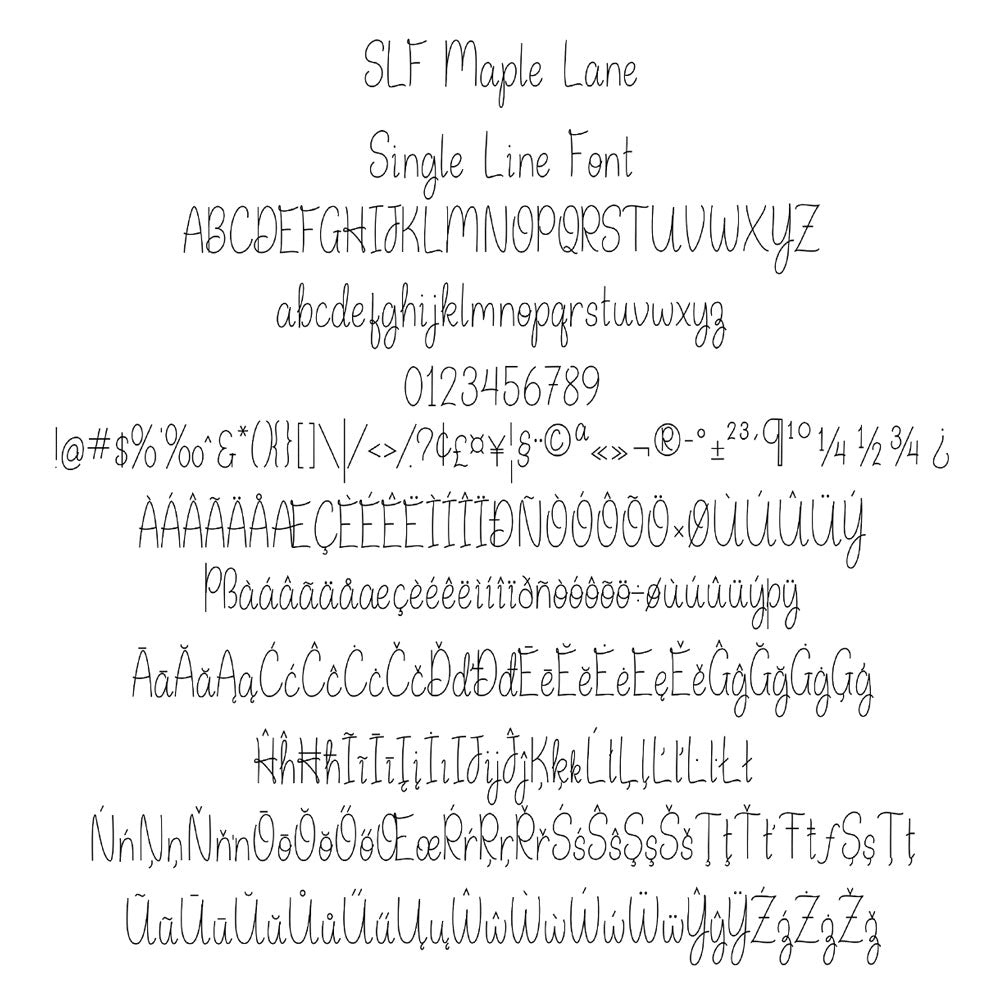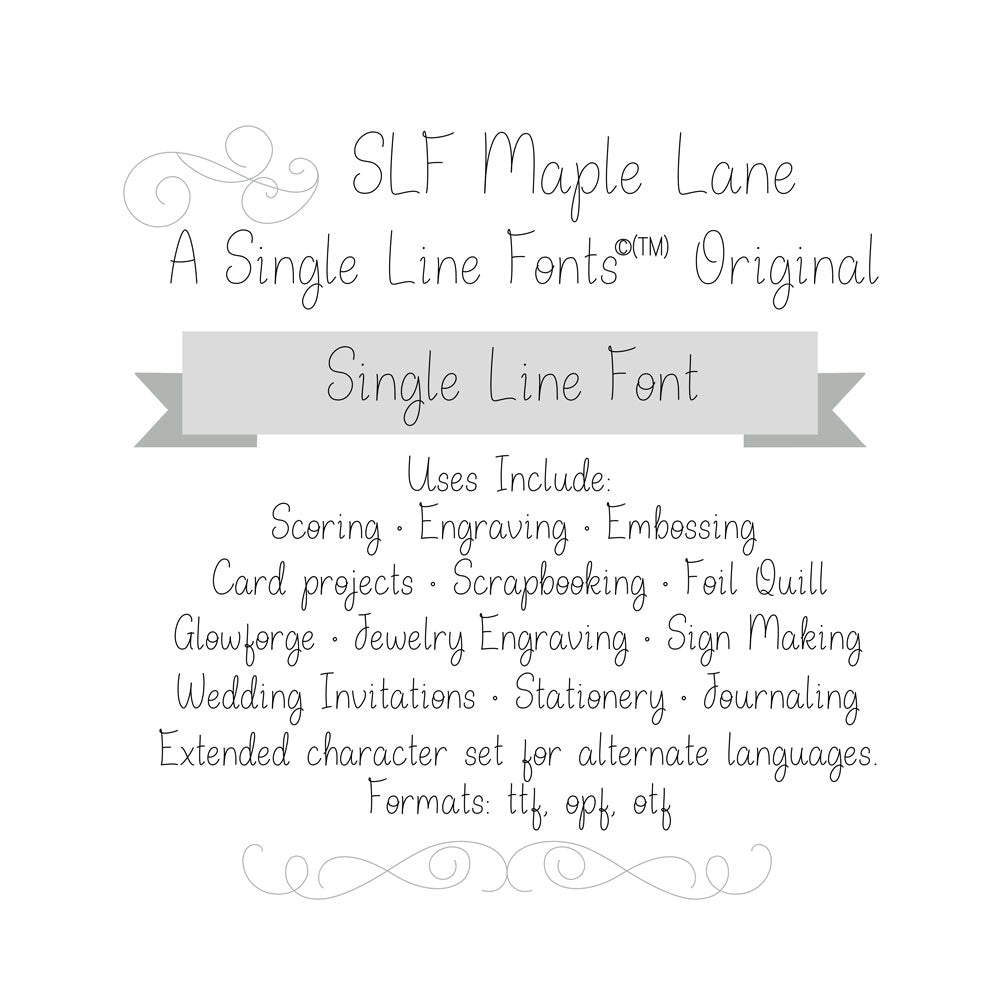
slf maple lane single line font
Single Line Font "SLF Maple Lane"
SLF Maple Lane
Prepare for back-to-school cardmaking and autumn-inspired projects with our latest release, SLF Maple Lane. This charming font captures the essence of the season, making it the perfect addition to your crafting toolkit.